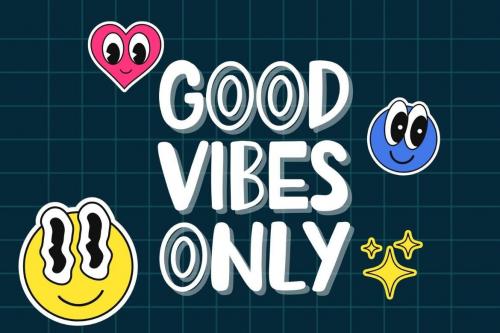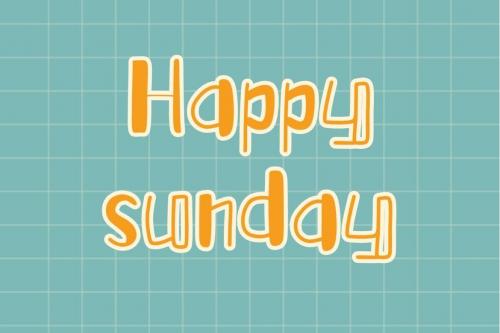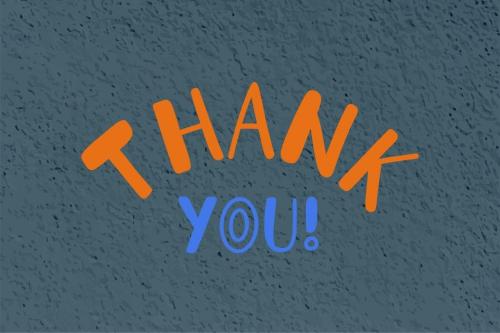
Thirsty Display Font WEFS5X9
hirsty is a display font. It embodies playfulness and authenticity
and is the perfect choice for all your favorite projects such as blog posts,
logos, branding, ads, invitations, greeting cards, planners, photo albums,
decorations, and much more.